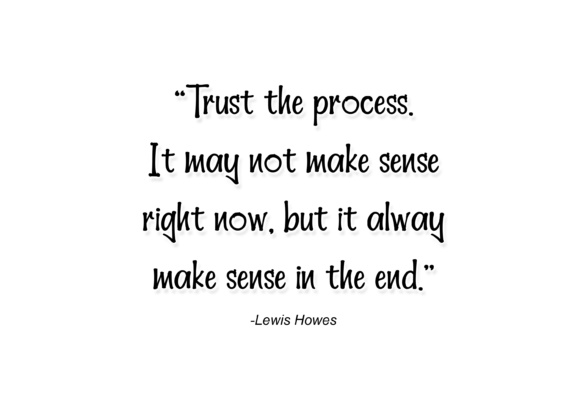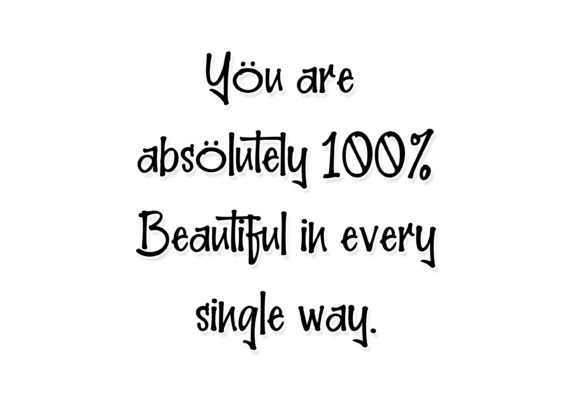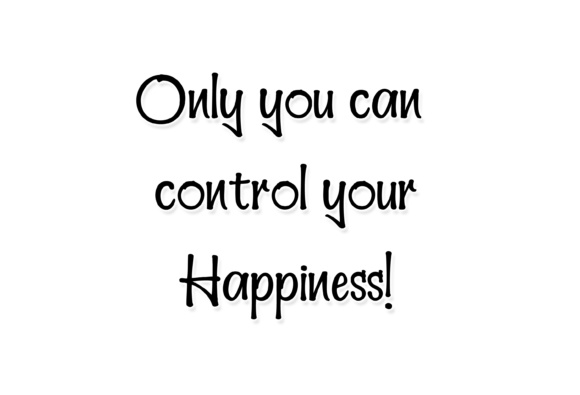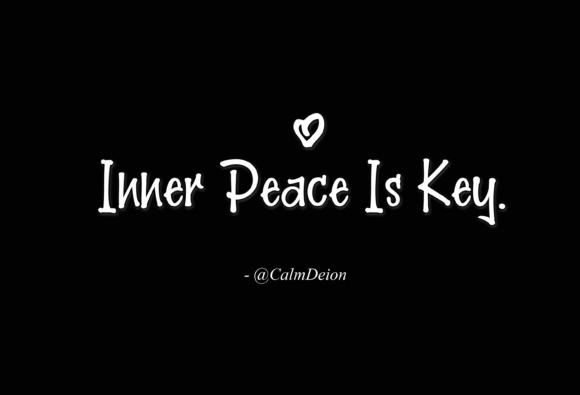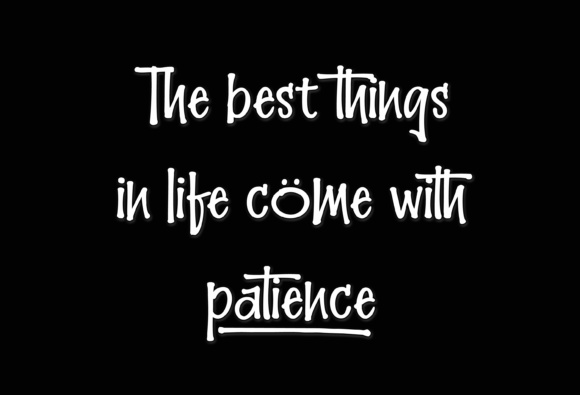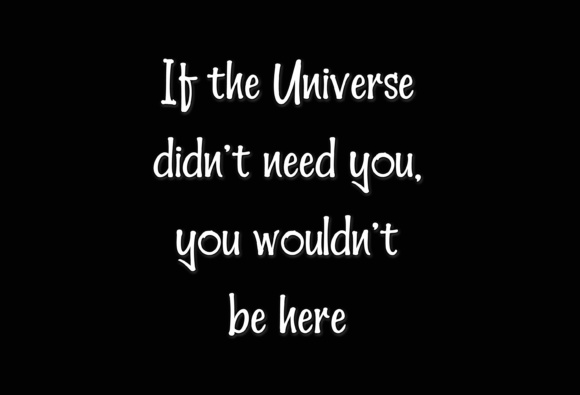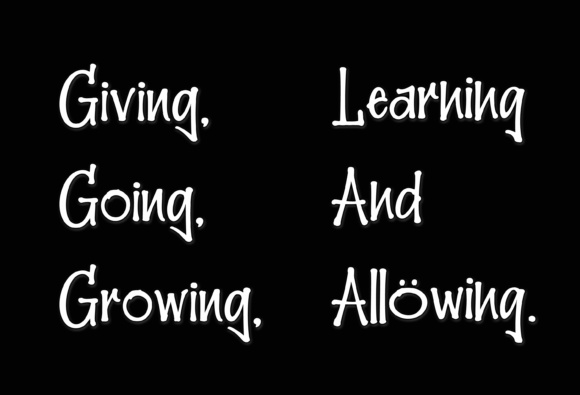
Hellobello! Font
Hellobello! is a marker duo with a set of swashes.
It’s a fun, playful font, that is great for logos, name tags, handwritten quotes, packaging and much more.